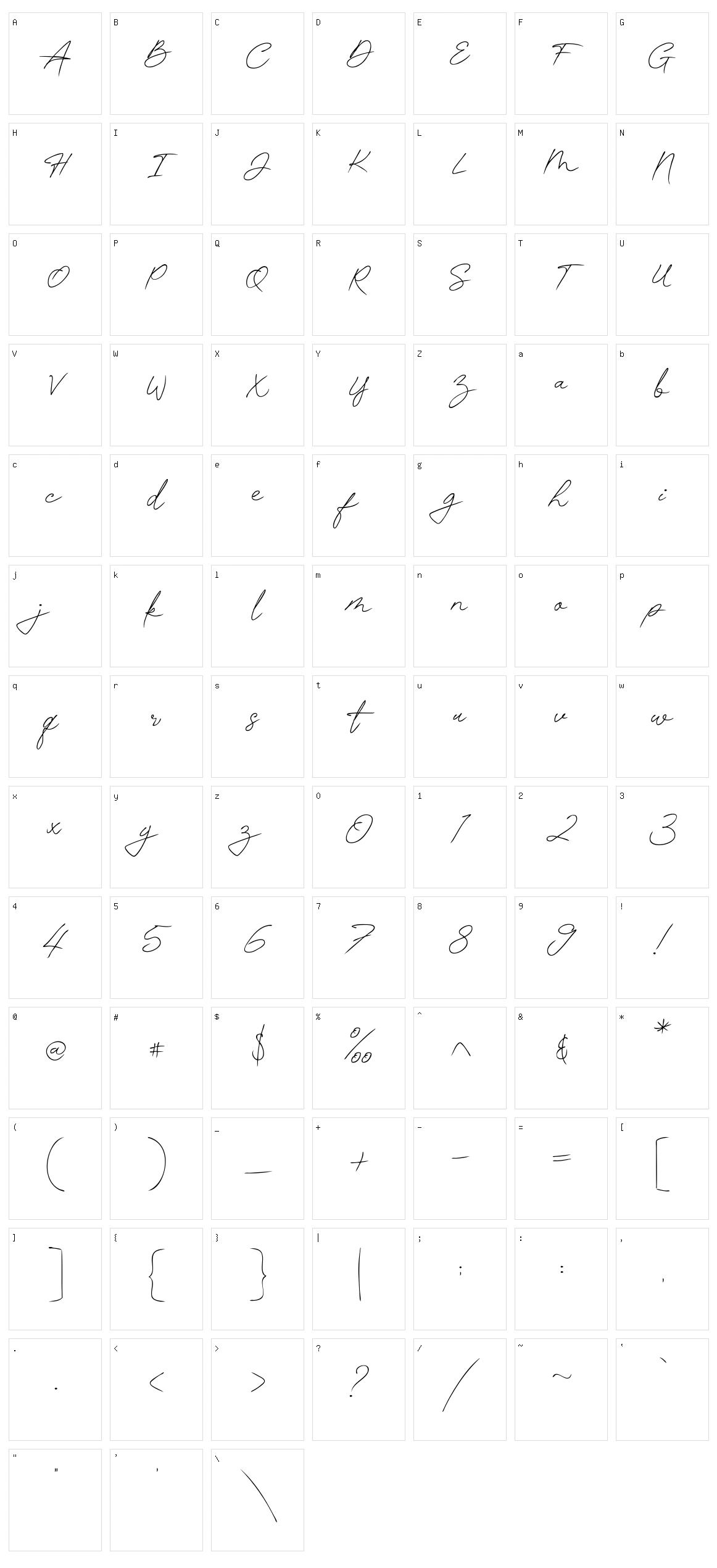
The free font Contle Signature is carefully designed by Fontada, showcasing a thoughtful balance of creativity and usability and falls under the Script font style. When you download the ZIP file, it contains only 74.65 KB of font files, making it lightweight and quick to download. Please review the license details below to understand permitted usage and distribution rights. If license information is not available, we recommend using this font for personal projects only or contacting the author directly for commercial usage permissions.